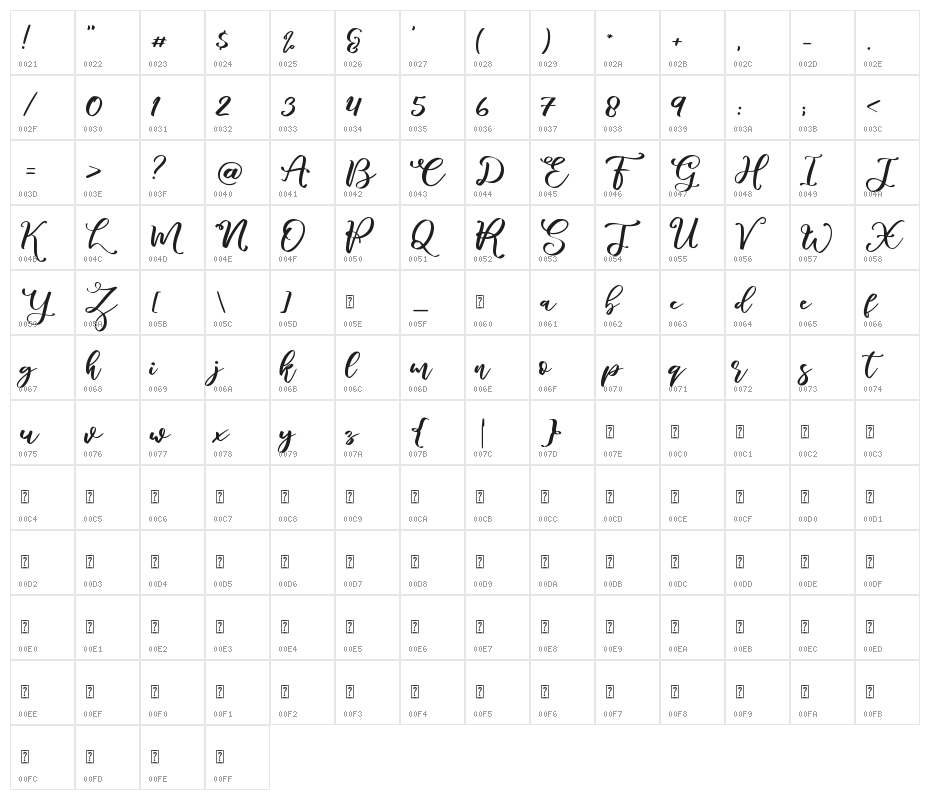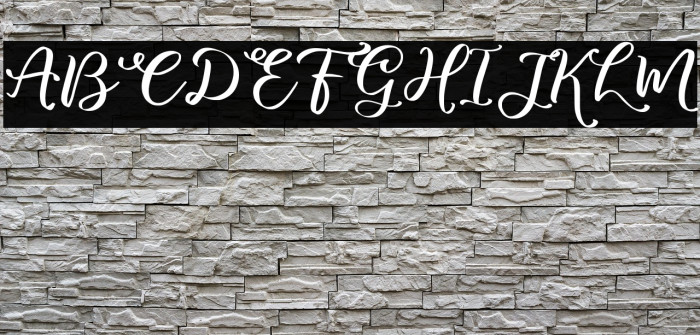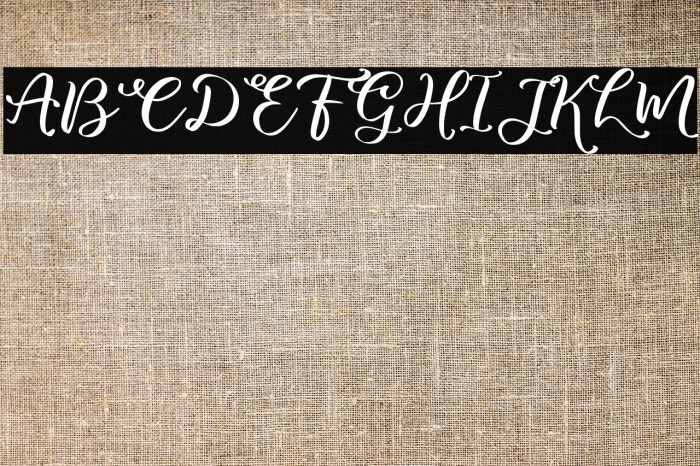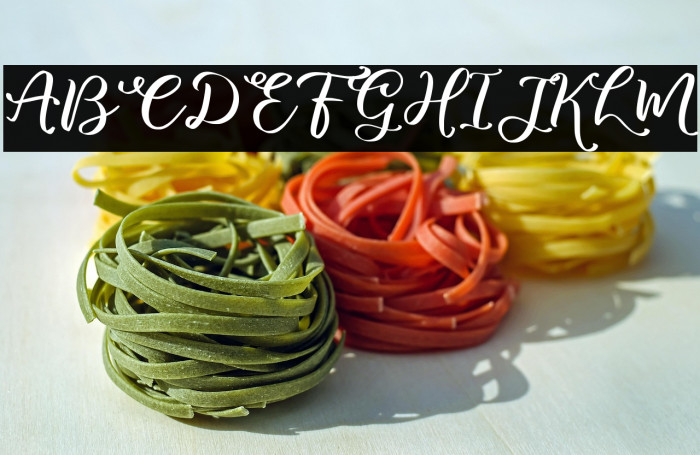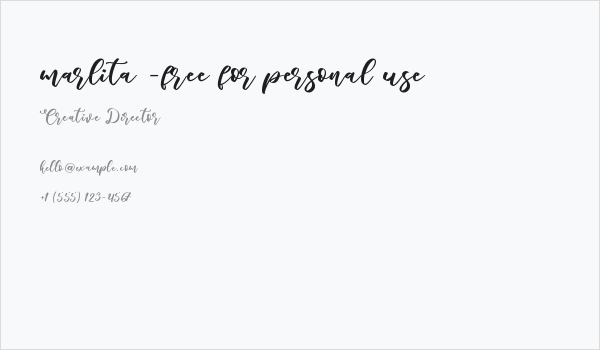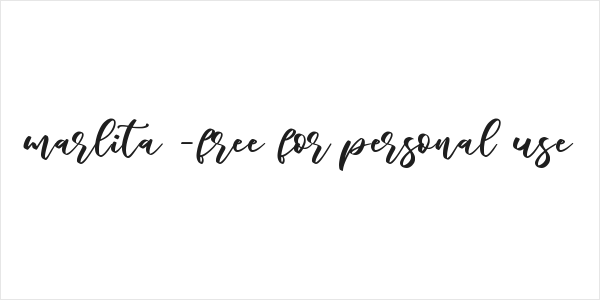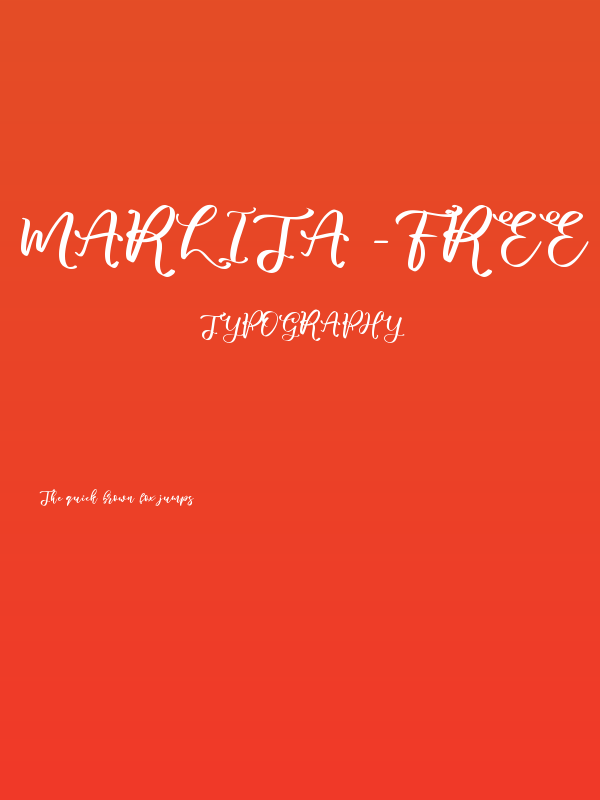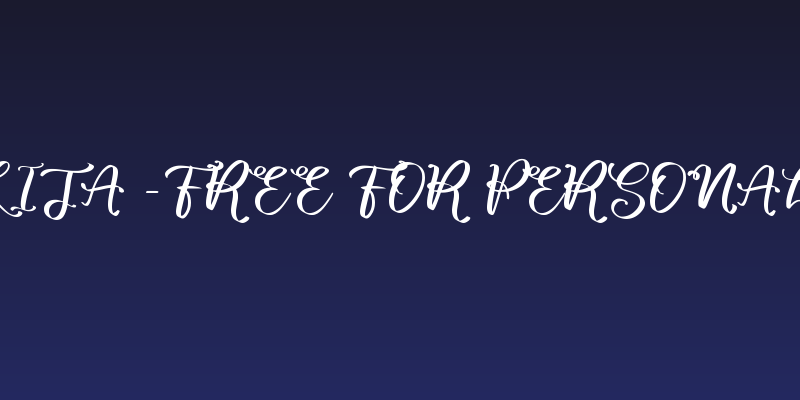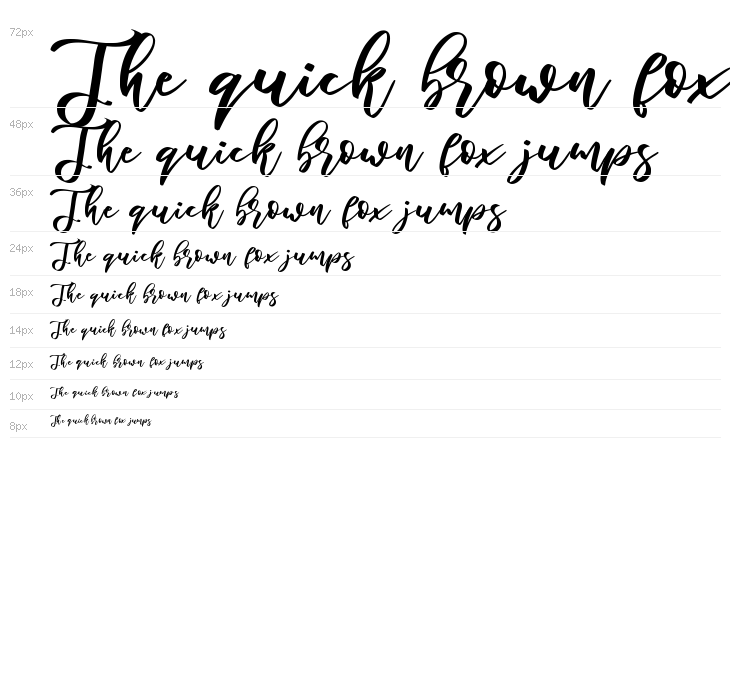
marlita -free for personal use Font
marlita -free for personal use Description
This font features a lively and elegant script style with a flowing, cursive design. The letters are characterized by their smooth, connected strokes and decorative swashes, giving it a sophisticated yet playful appearance. The uppercase letters are adorned with unique flourishes, adding a touch of whimsy and charm. The lowercase letters maintain a consistent flow, enhancing readability while retaining an artistic flair. Numbers and special characters are crafted with the same attention to detail, ensuring a cohesive look across all elements. This font is ideal for projects that require a personal and stylish touch.
| Proposed Projects | Ideal for wedding invitations, greeting cards, branding, and social media graphics. |